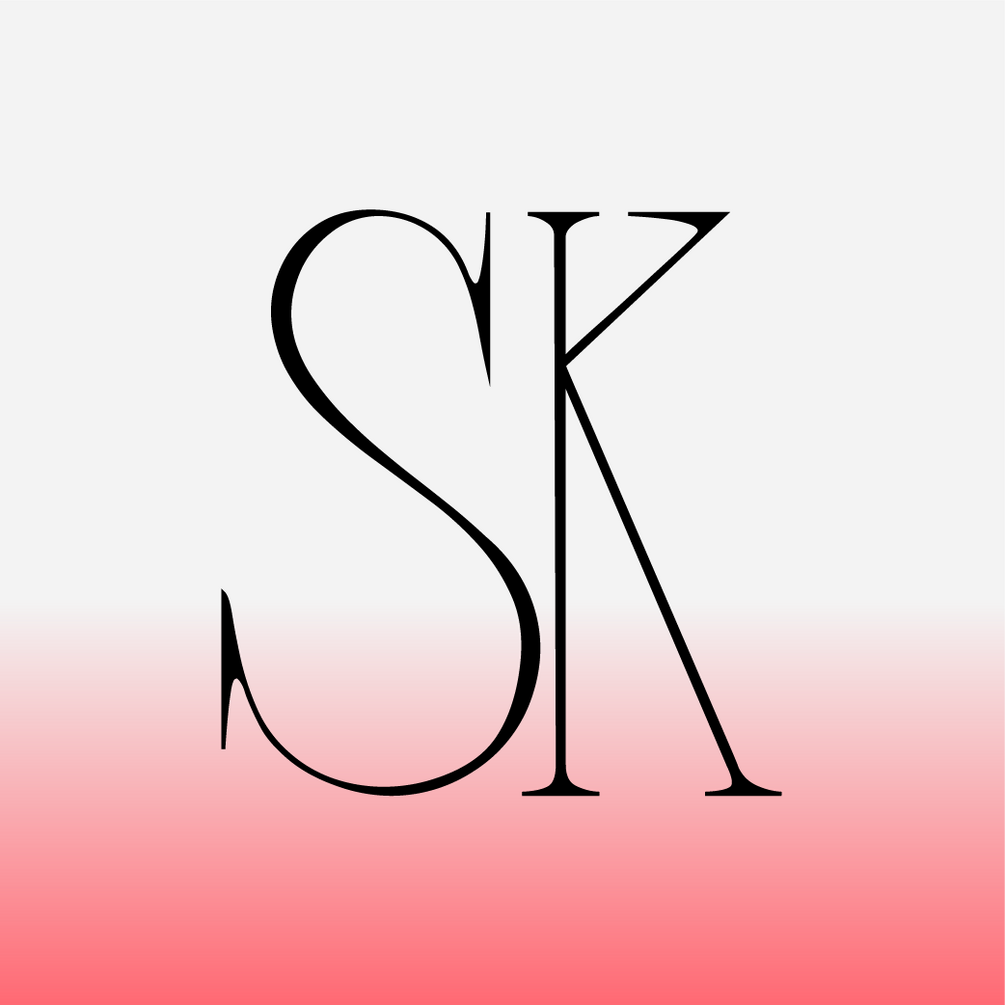
SK Frankinity
SK Frankinity is a modern modular antique inspired by the Gothic and fashion industry of the early XX century. Its unusual contrasting geometric shapes, on the one hand, follow the principles of building antique fonts, but on the other hand they violate these rules for the sake of experimentation. The font is very multitasking: its plastic fits into many areas of graphic design, supporting and complementing design solutions with shapes and alternatives. Thanks to a wide range of stylistic styles, any inscription can turn into an exquisite typographic composition.